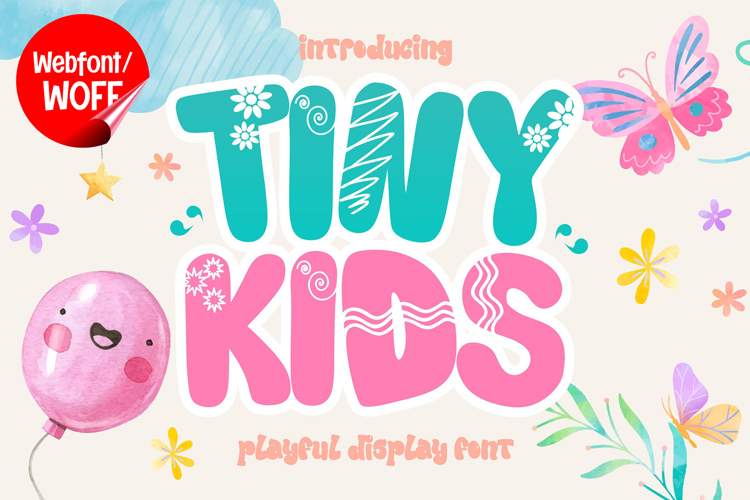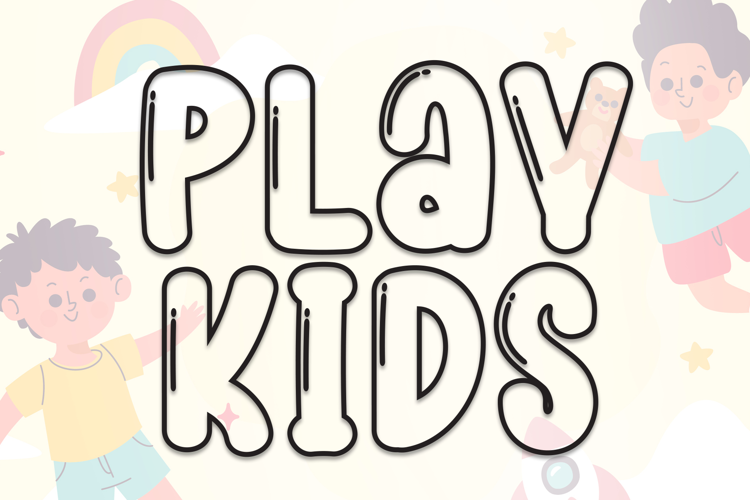
Tiny Kids | Cute Decorative Easter Display Webfont
Tiny Kids is a cute decorative Easter display webfont designed to bring joy, softness, and playful charm into modern website design. Inspired by Easter themes, children’s illustrations, and friendly hand-drawn lettering, this font features rounded shapes and cheerful forms that create a warm and inviting visual identity. It is an excellent choice for projects that aim to deliver a fun, lighthearted, and engaging typographic style.
Tiny Kids includes a complete set of uppercase characters designed with soft and decorative forms. The letterforms are rounded and friendly, often with subtle playful details that enhance their cute appearance. These characteristics make it ideal for headlines, banners, hero sections, and featured content where a cheerful and eye-catching look is needed.
In addition to letters, the font includes numbers and punctuation, allowing flexible usage across various parts of a website. It works well for children’s websites, Easter promotions, educational content, invitations, product displays, and creative branding. Each character maintains a consistent cute decorative style, ensuring a cohesive and unified visual identity throughout the layout.
With multilingual support, Tiny Kids includes a wide range of accented characters, making it suitable for international websites and global audiences. This allows content to be displayed clearly across different languages while preserving the friendly and playful aesthetic.
The cute decorative Easter style of Tiny Kids makes it especially suitable for kids’ brands, seasonal campaigns, creative portfolios, toy stores, and family-oriented websites. Its soft and joyful design adds personality and warmth, helping websites stand out in visually competitive environments. The playful style enhances emotional connection and user engagement.
Despite its decorative and playful appearance, Tiny Kids is designed with readability in mind. The spacing and proportions are carefully balanced to ensure clarity, particularly in display sizes. This makes it effective for impactful headings and short content elements where both style and usability are important.
Tiny Kids is a webfont that combines cute decorative aesthetics with modern digital performance. Its rounded shapes, cheerful character, and playful style create a distinctive typographic presence that enhances website design. For projects that require a fun, adorable, and visually engaging display font, Tiny Kids offers a charming and versatile solution.
Tiny Kids Webfont
Tiny Kids